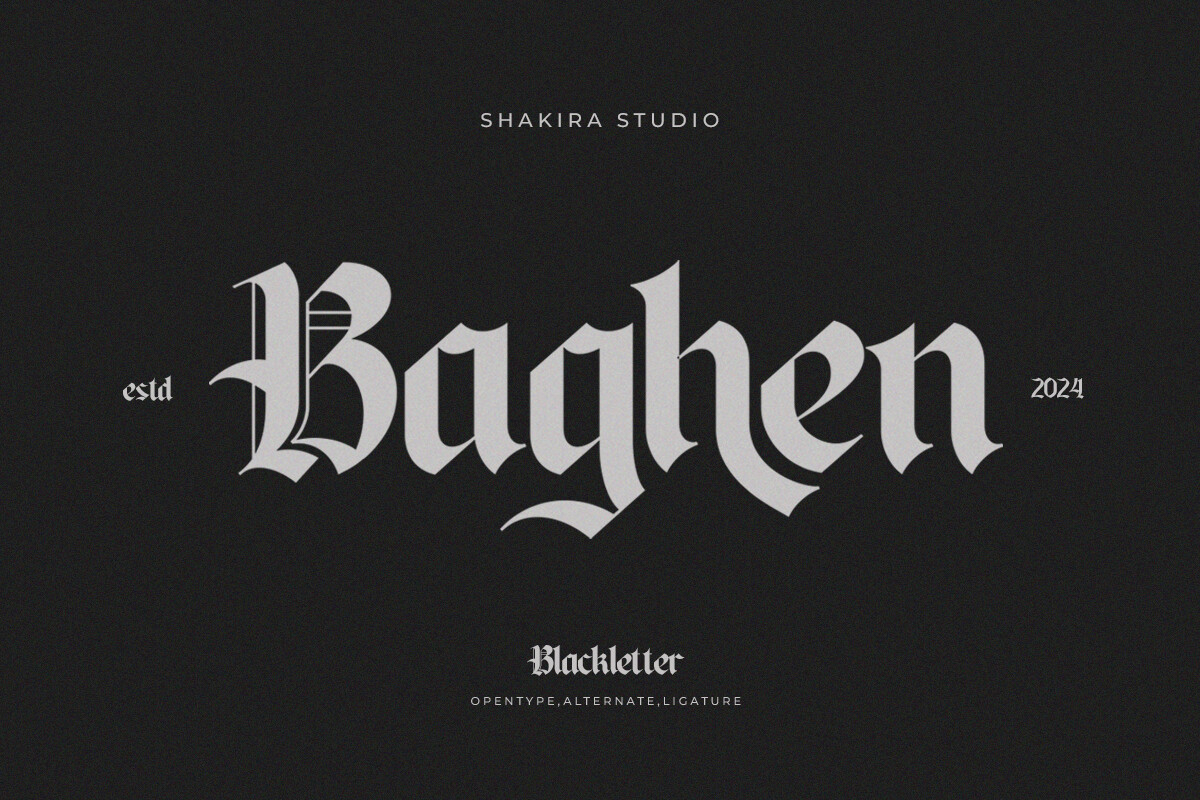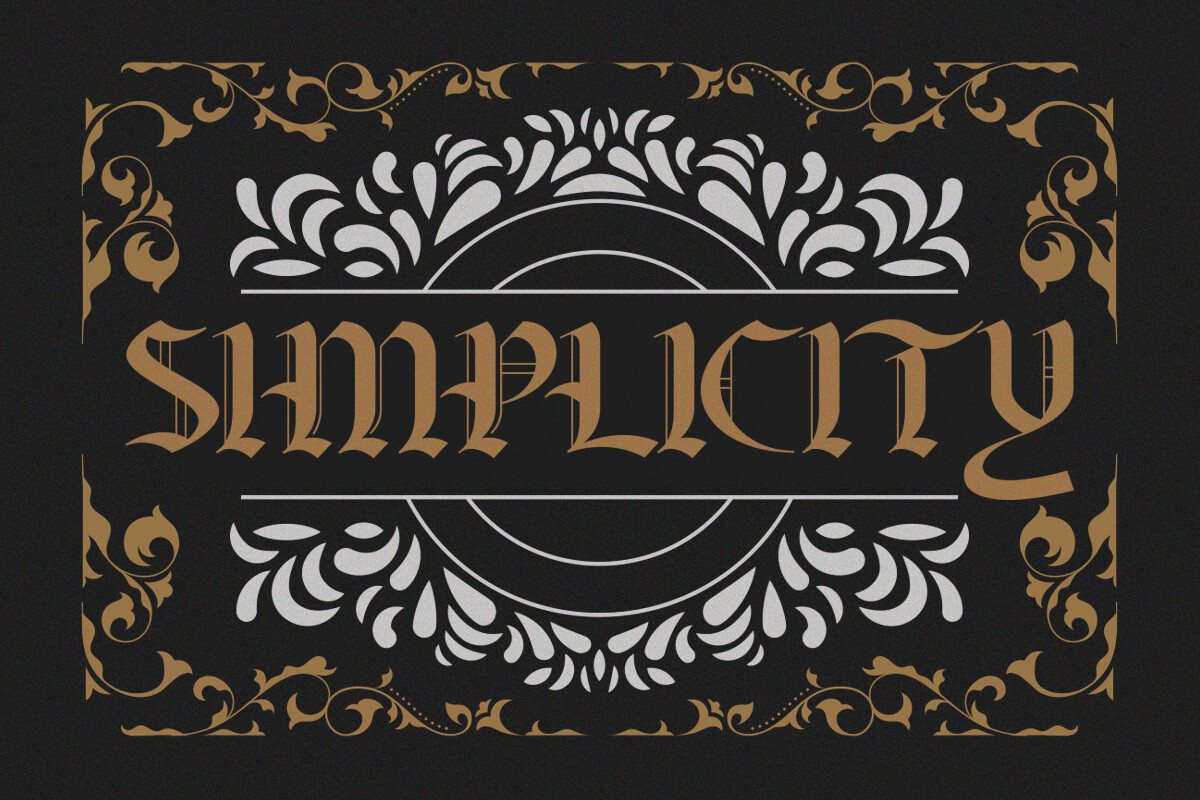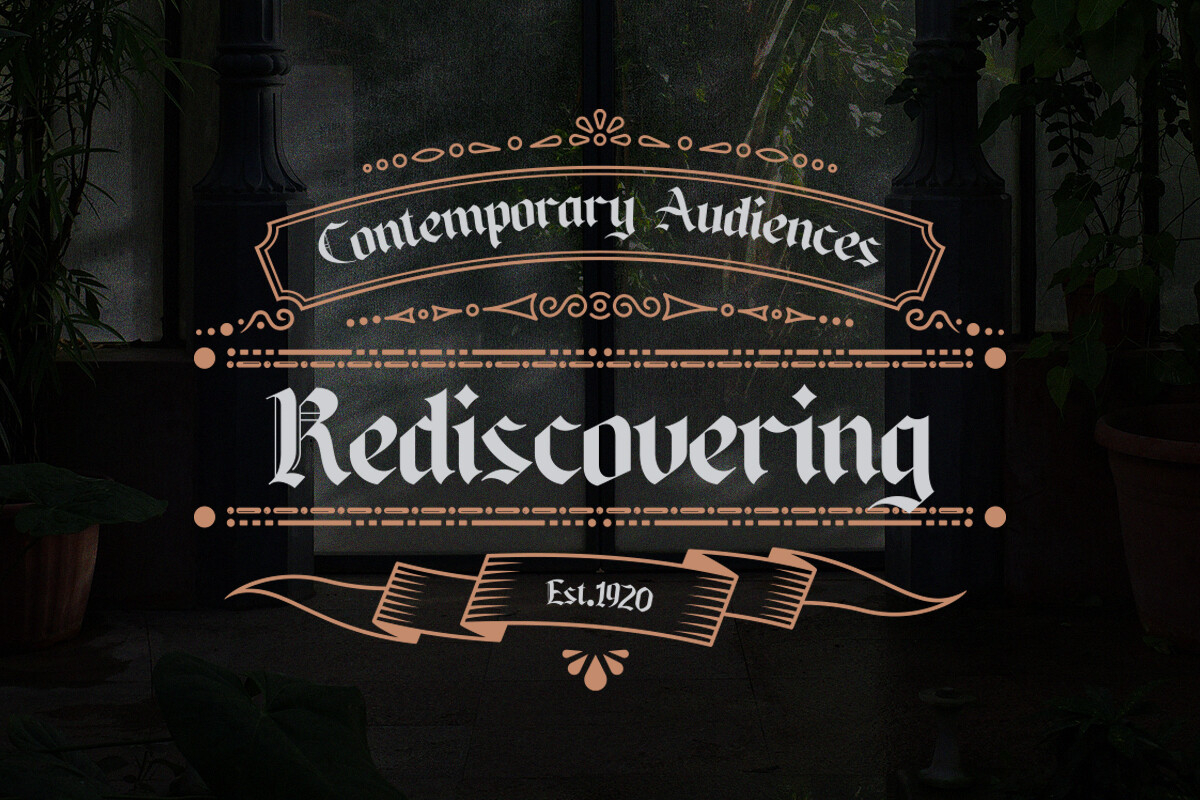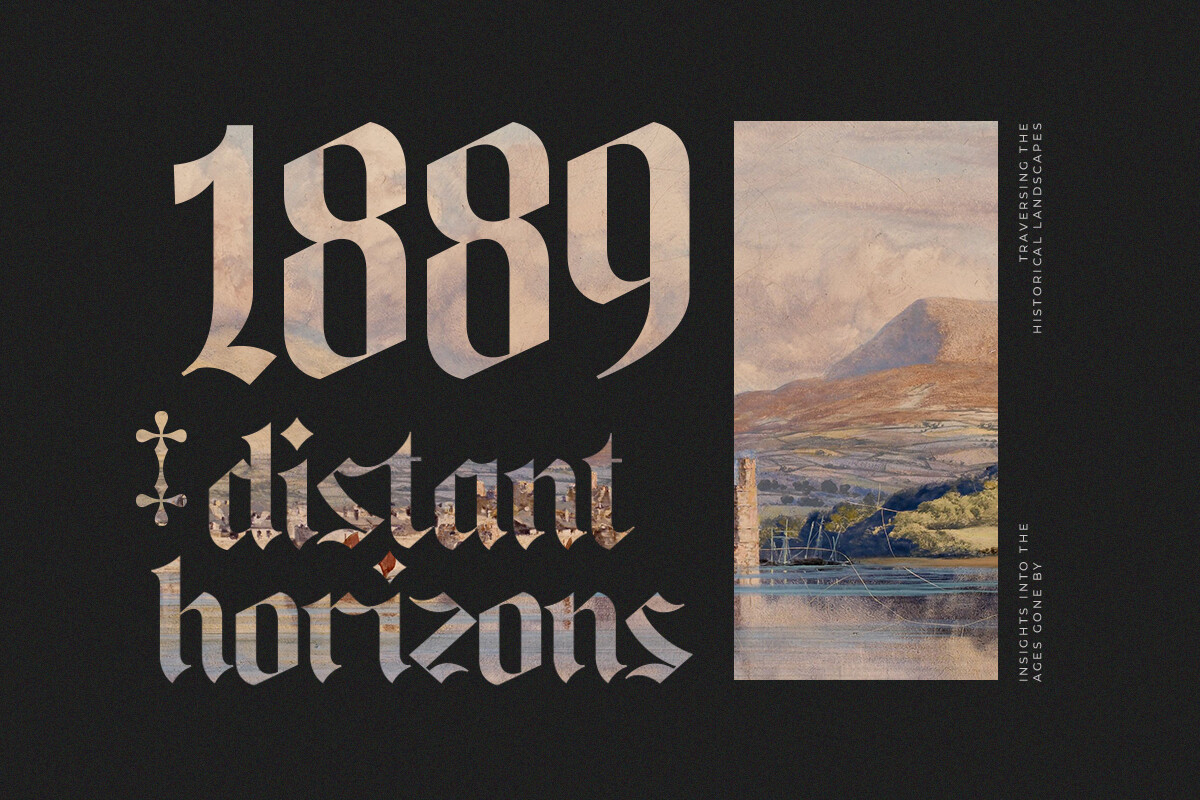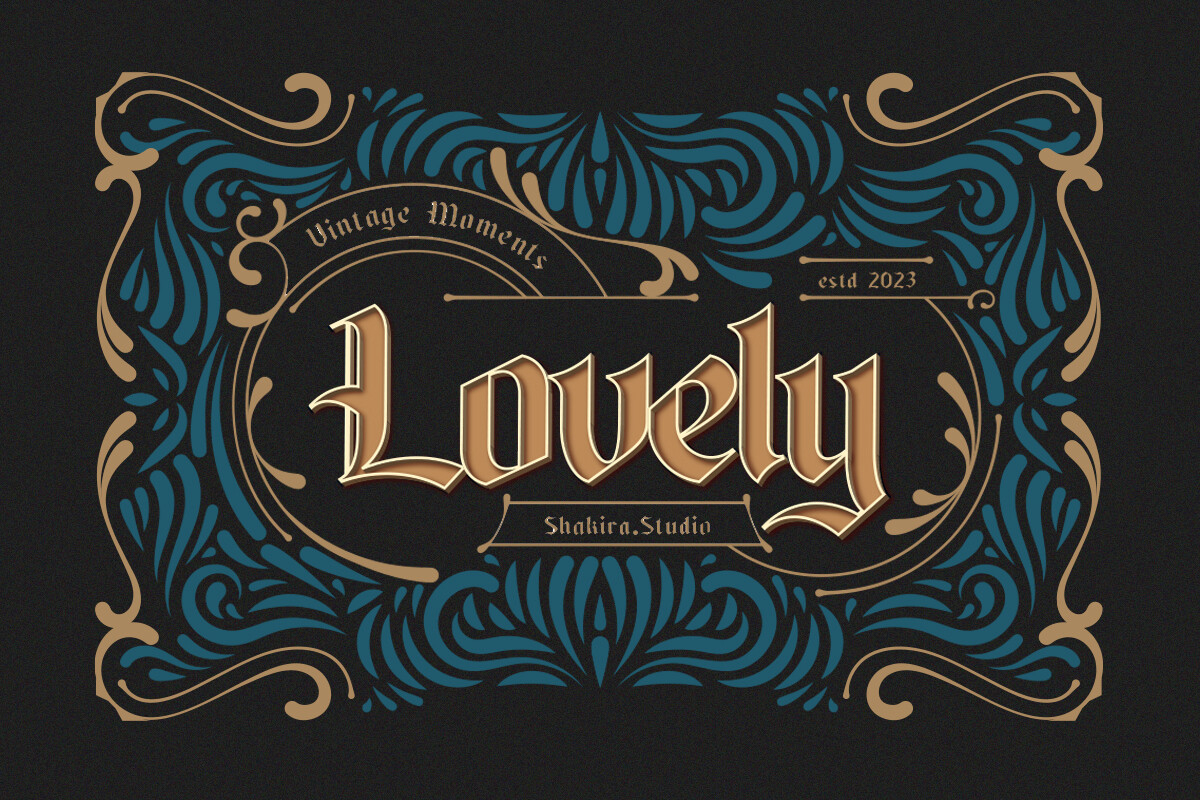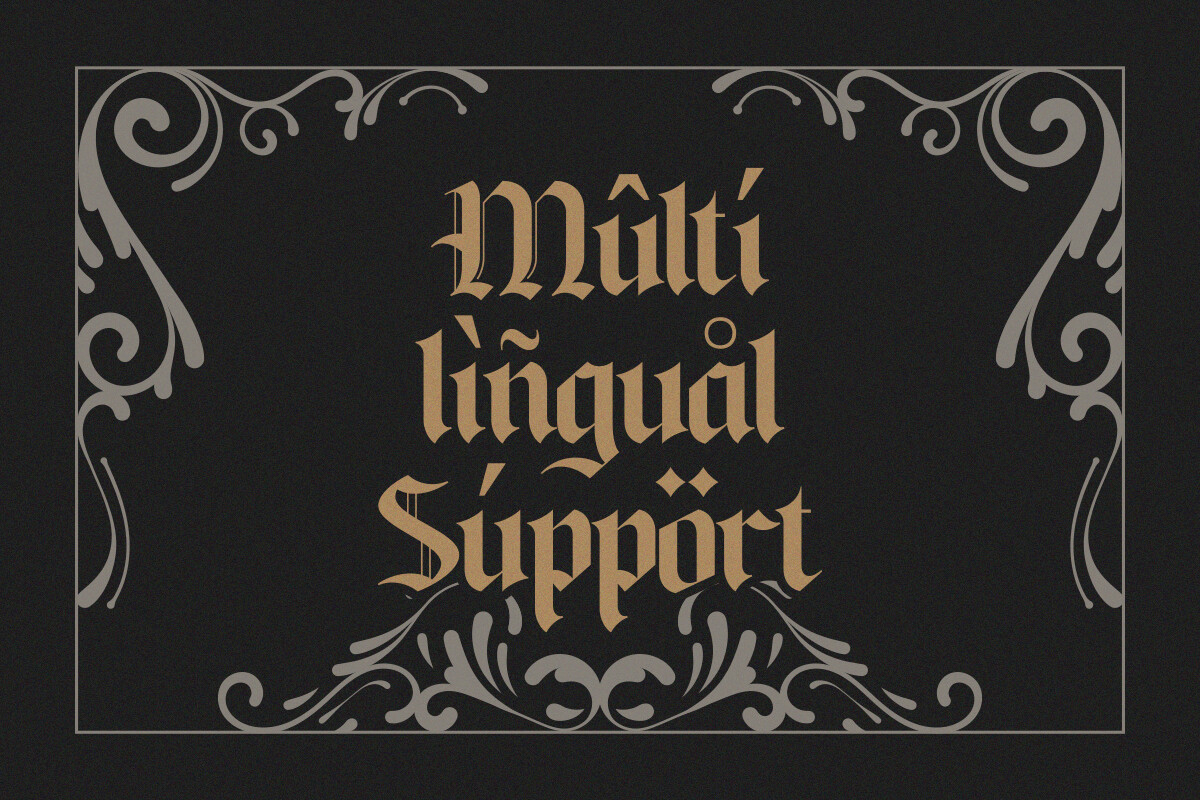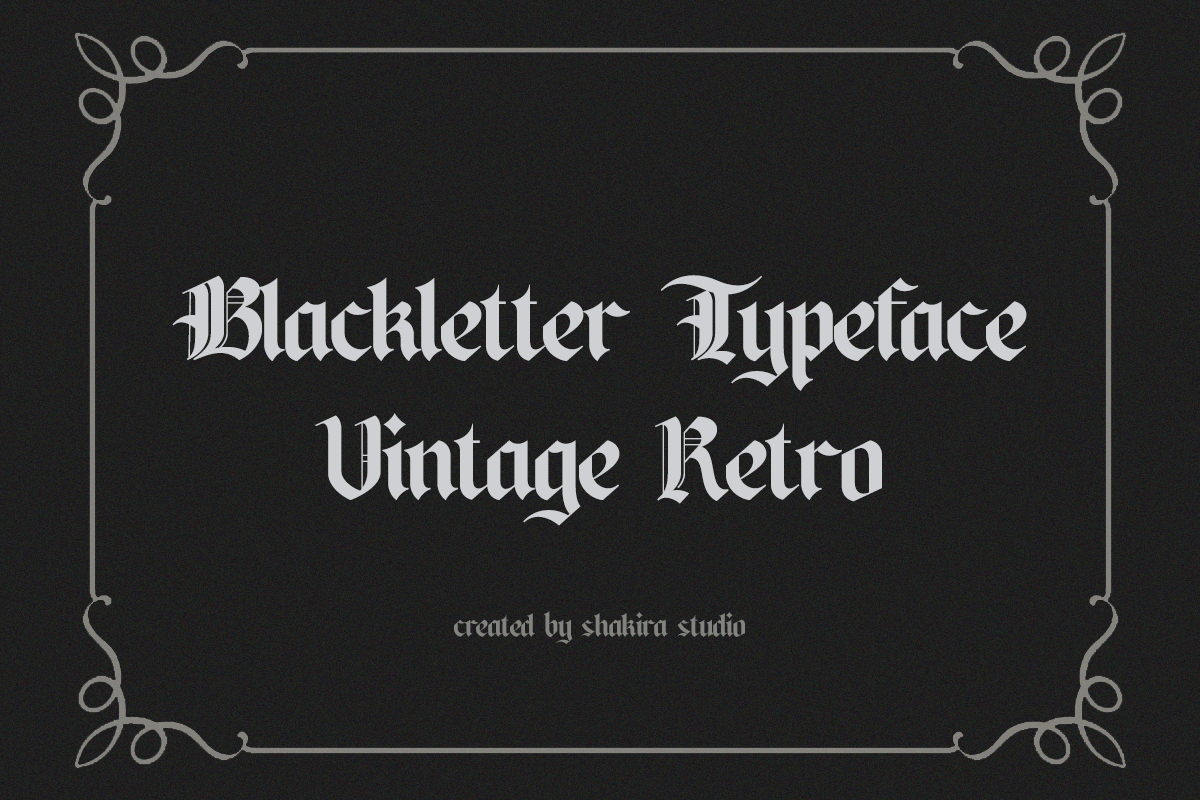
About Baghen Font
Introducing Baghen – embrace the timeless charm of an old English blackletter font!
Baghen is not just a font; it’s a journey back in time to the elegance of Old English script. With its classic appearance and intricate details, Baghen brings a touch of historic sophistication to your designs.
Crafted for designers seeking to infuse their projects with a sense of tradition and authenticity, Baghen embodies the essence of Blackletter fonts and vintage typography.
With its ornate flourishes and vintage appeal, Baghen is perfect for creating invitations, signage, and branding materials that demand attention and evoke a sense of timeless beauty.